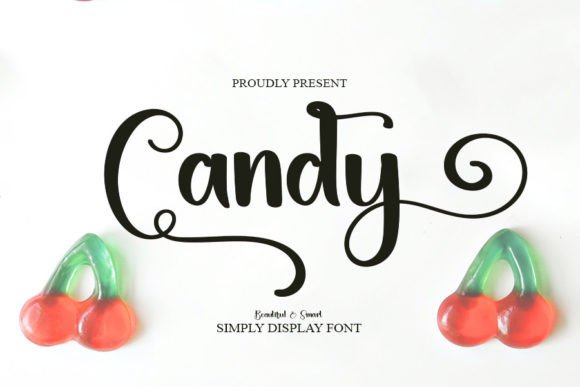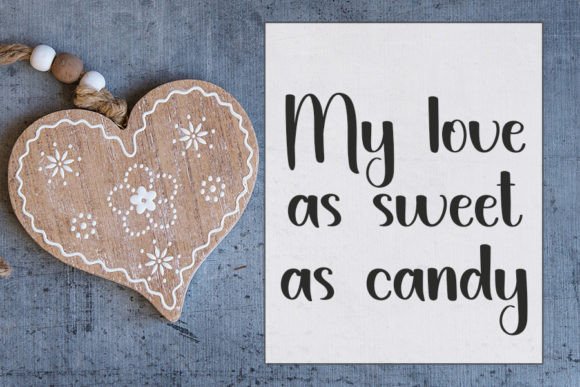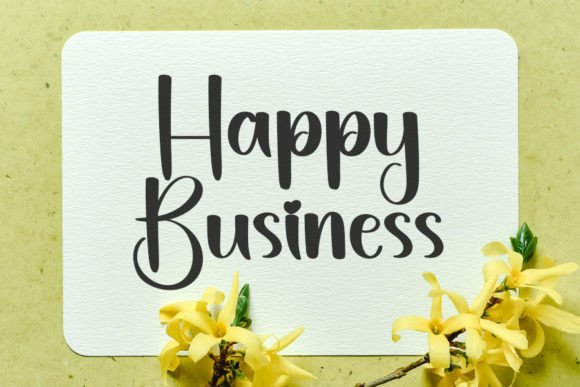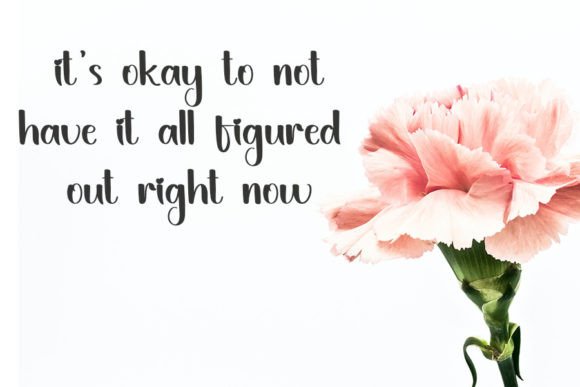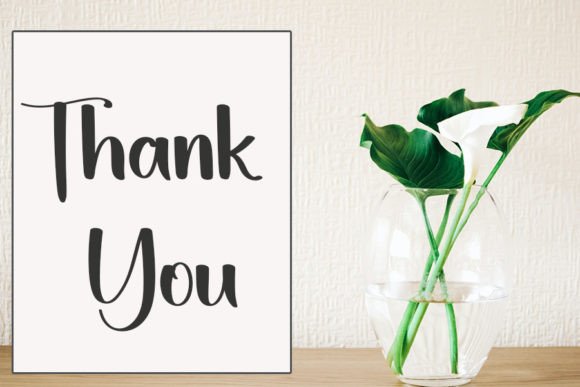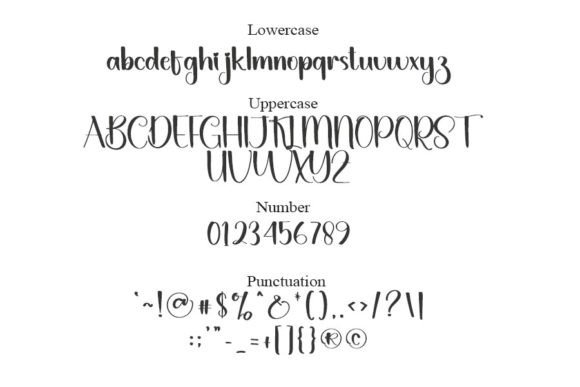
Candy Font
What Is Candy Font?
Candy is a trendy handwritten font that blends timeless calligraphy with a modern, stylish feel. With smooth curves and balanced forms, this font instantly elevates any design project. Because it’s created with great attention to detail, Candy works beautifully for both personal and professional use.
You’ll love how easily it transforms simple ideas into elegant, polished designs.
Candy is highly versatile, making it ideal for many design scenarios. For example, it’s perfect for wedding invitations. Whether you’re designing formal event stationery or save-the-date cards, this font adds a touch of sophistication.
It also shines in branding projects. When you want your logo or brand identity to feel classy and modern, Candy helps you stand out with style.
Additionally, this font is a wonderful choice for greeting cards. If you want your messages to feel warm and personal, Candy’s flowing lines help you express every sentiment beautifully.
You can also use it in social media graphics. Whether you’re sharing promotions, inspirational quotes, or announcements, Candy adds an elegant touch that catches the eye.
From product packaging and labels to event signage and custom merchandise, this font adapts seamlessly to any creative project.
Why Should You Choose Candy Font?
There are plenty of reasons to add Candy to your font library. First, it’s easy to read at any size. Whether you’re using it for large headlines or smaller captions, each letter remains crisp and clear.
Also, Candy pairs perfectly with minimalist serif or sans-serif fonts. This makes creating modern and cohesive layouts effortless.
Designers appreciate how polished it looks immediately, saving time while ensuring a professional finish.
Candy Font brings elegance, sophistication, and a timeless appeal to every project. For example, if you want your designs to feel refined and modern, this font makes it simple.
Even minimal layouts gain character and depth with Candy’s graceful strokes and balanced shapes. Whether you’re creating branding materials, social media content, or wedding stationery, your work will look cohesive and beautiful.
Using a premium handwritten font also demonstrates your attention to quality and detail, building trust and leaving a strong impression on your audience.
Candy Font is more than just a typeface—it’s a creative asset that helps you share your ideas with elegance and charm. From logos and invitations to packaging and social media, this font adapts effortlessly and elevates every design.